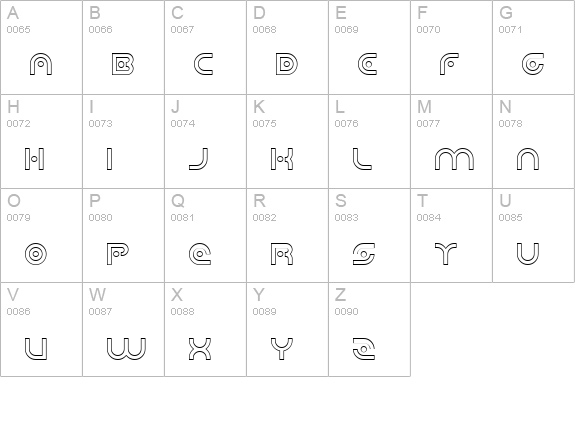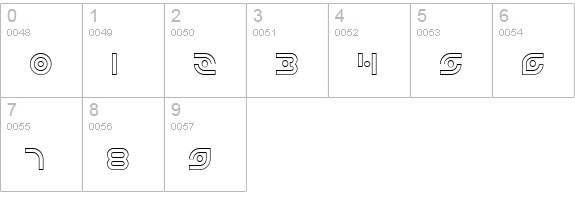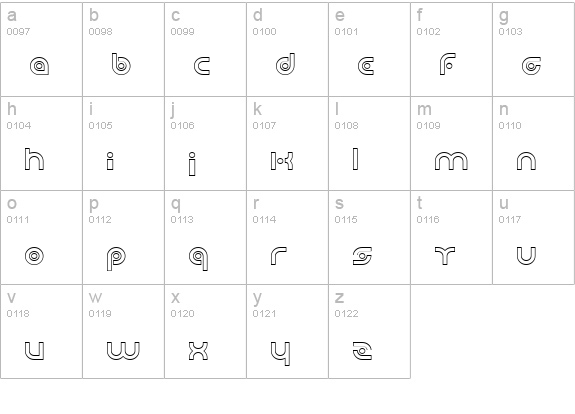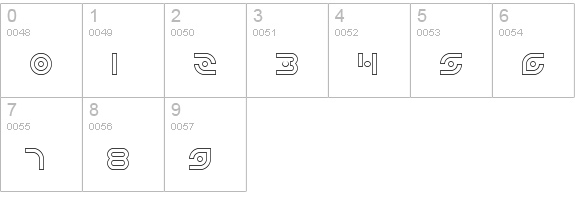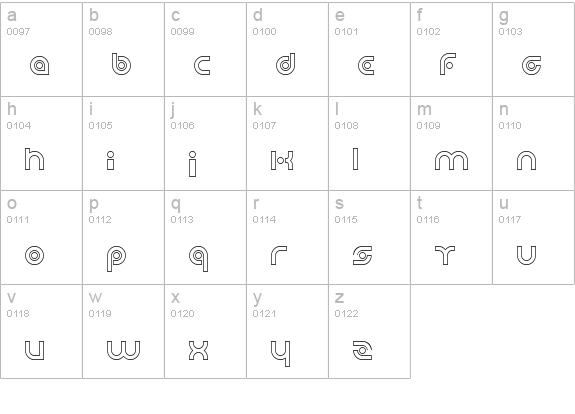
Planetary Orbiter Outline Font Details
Introducing the mesmerizing Planetary Orbiter Outline font - a true masterpiece that will take your typography game to celestial heights. This font is the perfect fusion of futuristic elegance and otherworldly charm, making it an essential addition to any designer's toolkit. The Planetary Orbiter Outline font boasts a captivating interplay of bold outlines and intricate details, reminiscent of the awe-inspiring celestial bodies that adorn our vast universe. Its meticulously crafted curves and precise angles create a harmonious balance that is visually striking and undeniably captivating. Whether you're designing for print or digital media, the Planetary Orbiter Outline font will effortlessly elevate your projects to new dimensions. From eye-catching headlines to intriguing subheadings, this font will infuse your text with a sense of cosmic wonder, leaving a lasting impression on your audience. Not only does the Planetary Orbiter Outline font offer unparalleled visual appeal, but it also provides unrivaled versatility. With a wide range of weights and styles to choose from, you can easily customize your typography to suit any project. Whether you're aiming for a sleek and modern look or a more retro-inspired vibe, this font has got you covered. And the best part? The Planetary Orbiter Outline font is available for free at FontsMarket.com. Yes, that's right - you can effortlessly elevate your designs without breaking the bank. Simply head over to FontsMarket.com, download this celestial gem, and let your creativity soar to new heights. So, why settle for ordinary when you can embrace the extraordinary? Embrace the captivating allure of the Planetary Orbiter Outline font and let your designs truly shine. Download it for free at FontsMarket.com and embark on a typographic journey that's out of this world.